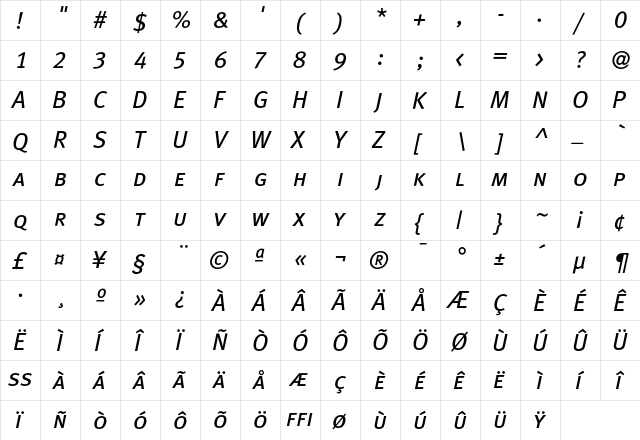
MetaPlus BookCapsItalic
Design Context for MetaPlus Typeface
MetaPlus offers clean, dependable letterforms without strong stylistic allegiance, making it a practical choice for designers who need flexibility. Its italic angle brings a sense of urgency and motion to the letterforms.
Pro Tip: Try MetaPlus for annotation and caption copy alongside an upright companion — the contrast in angle creates a dynamic but ordered typographic system.